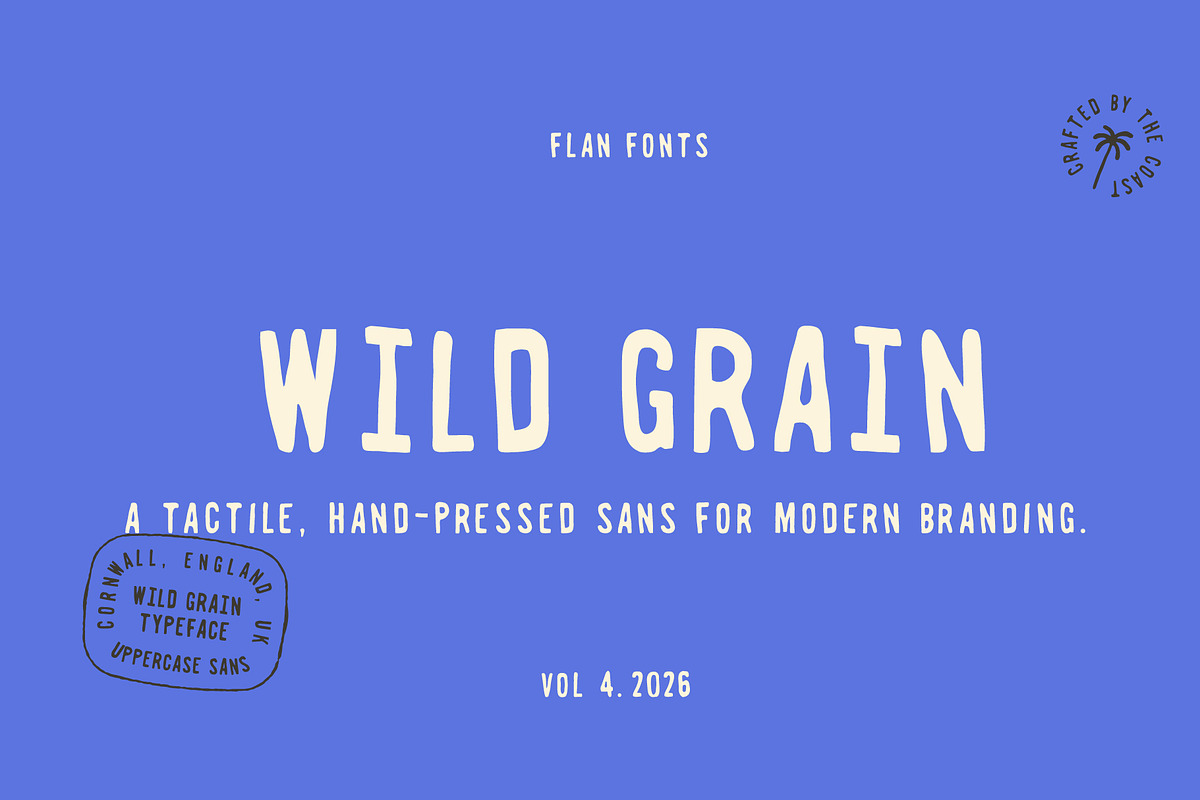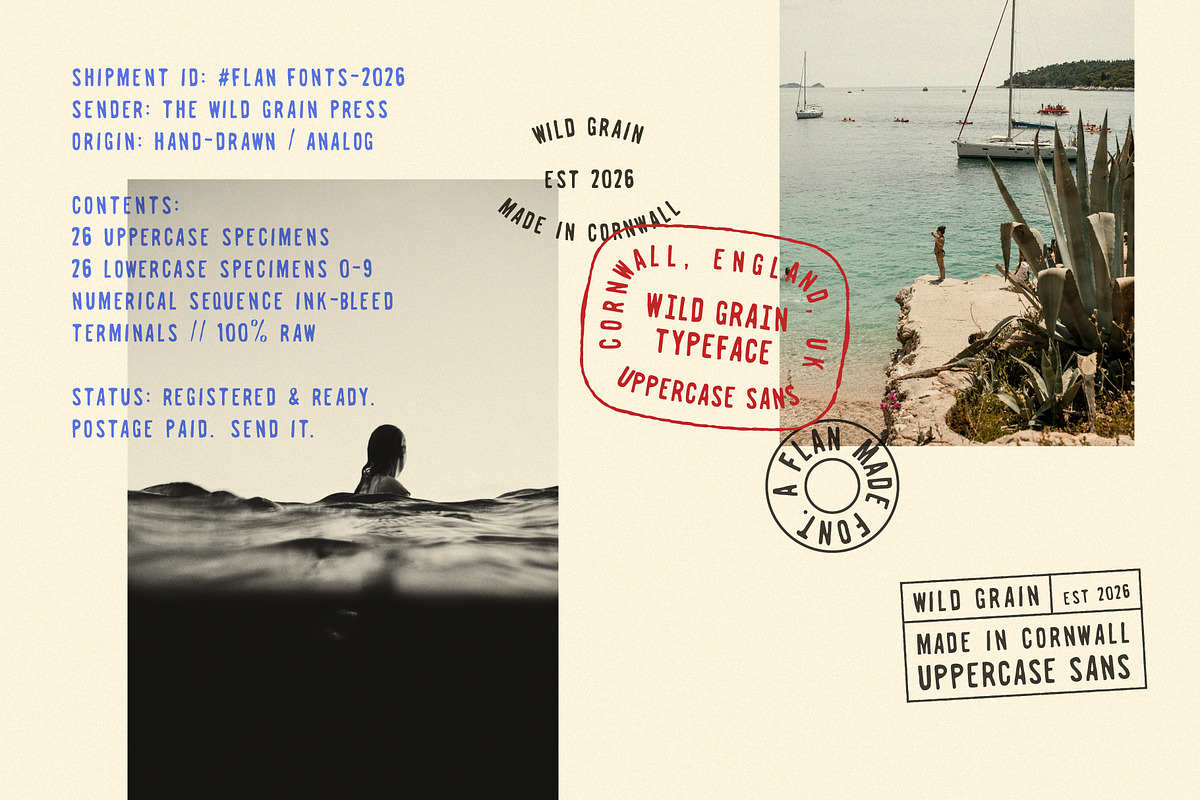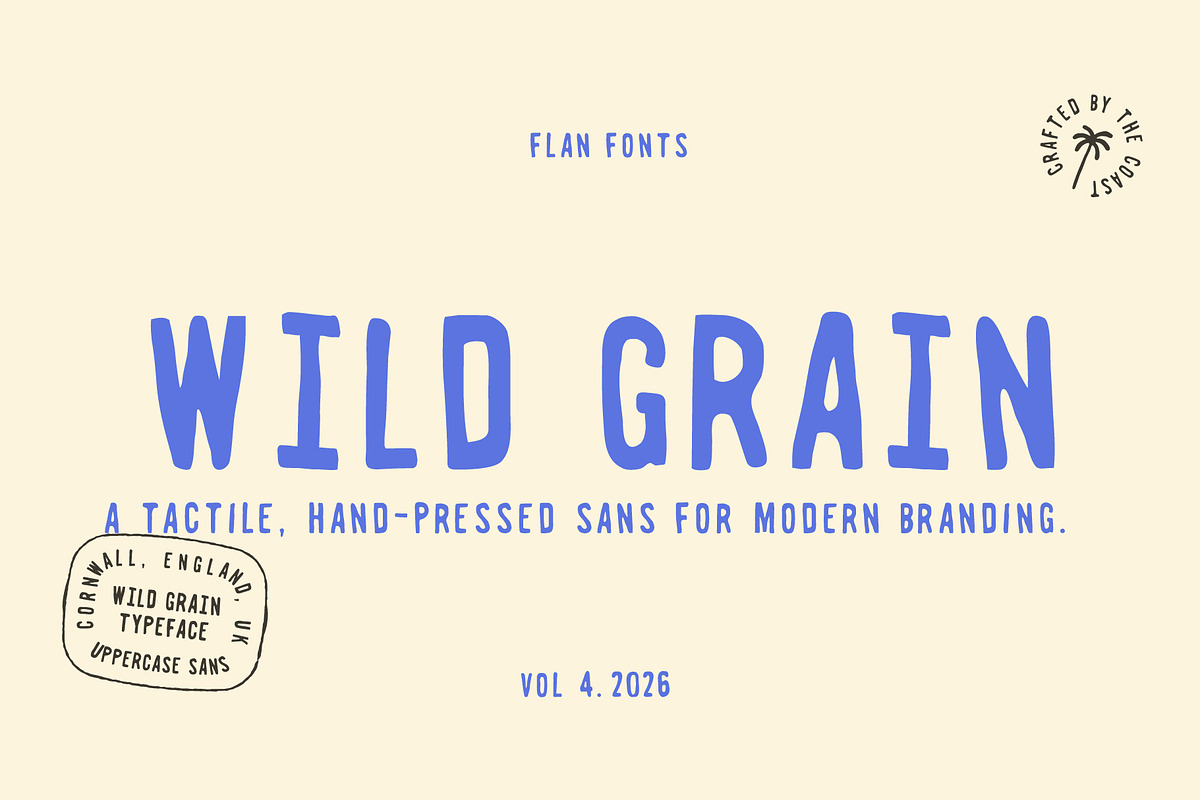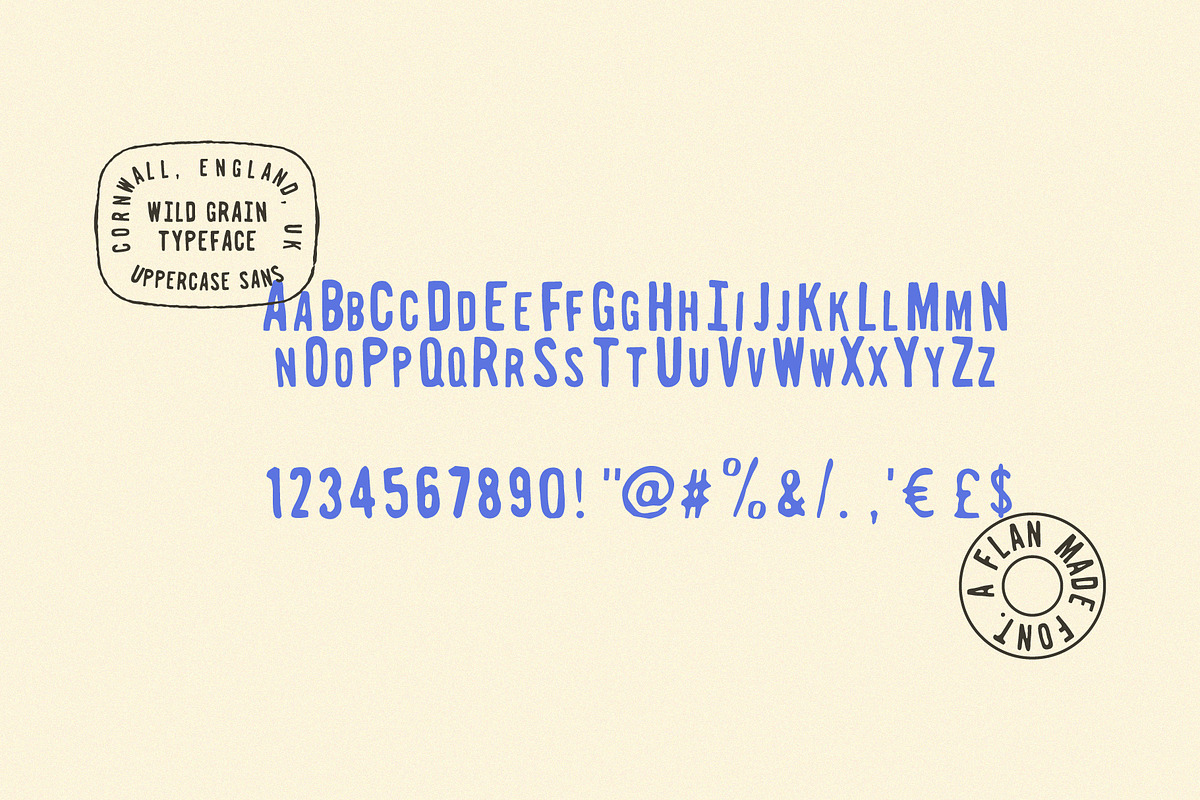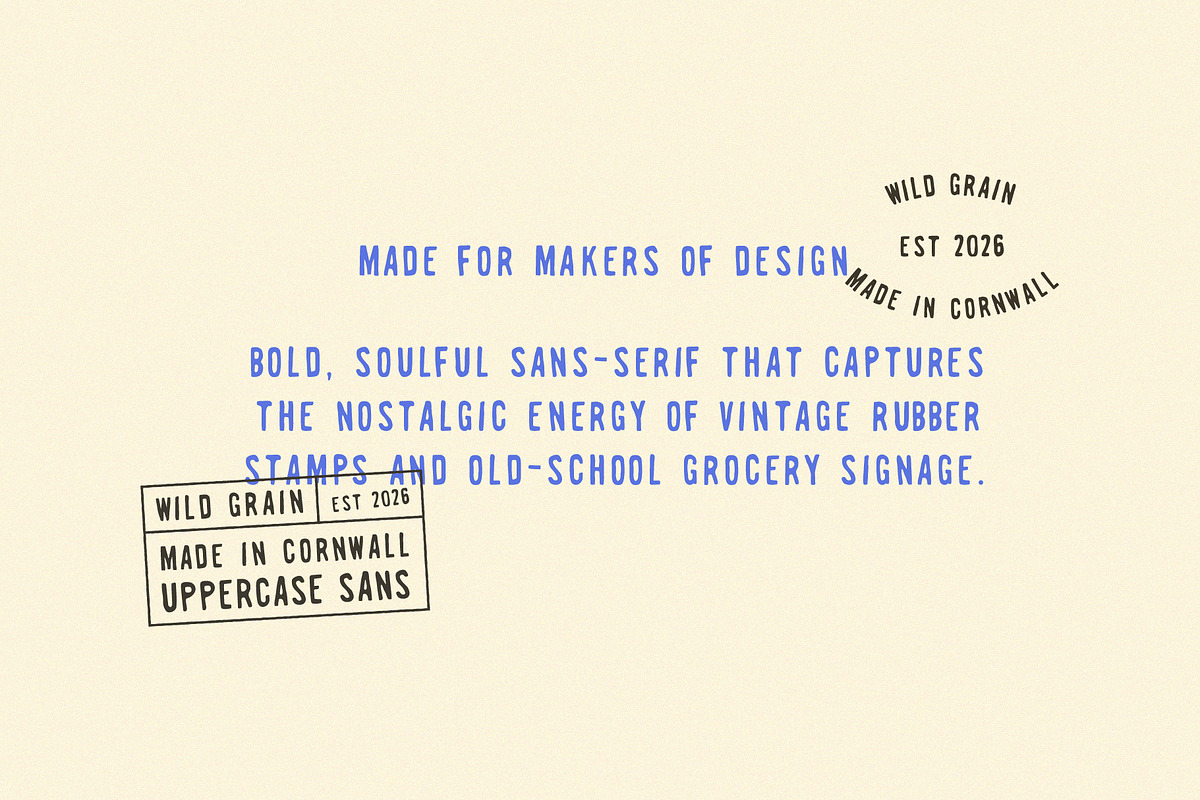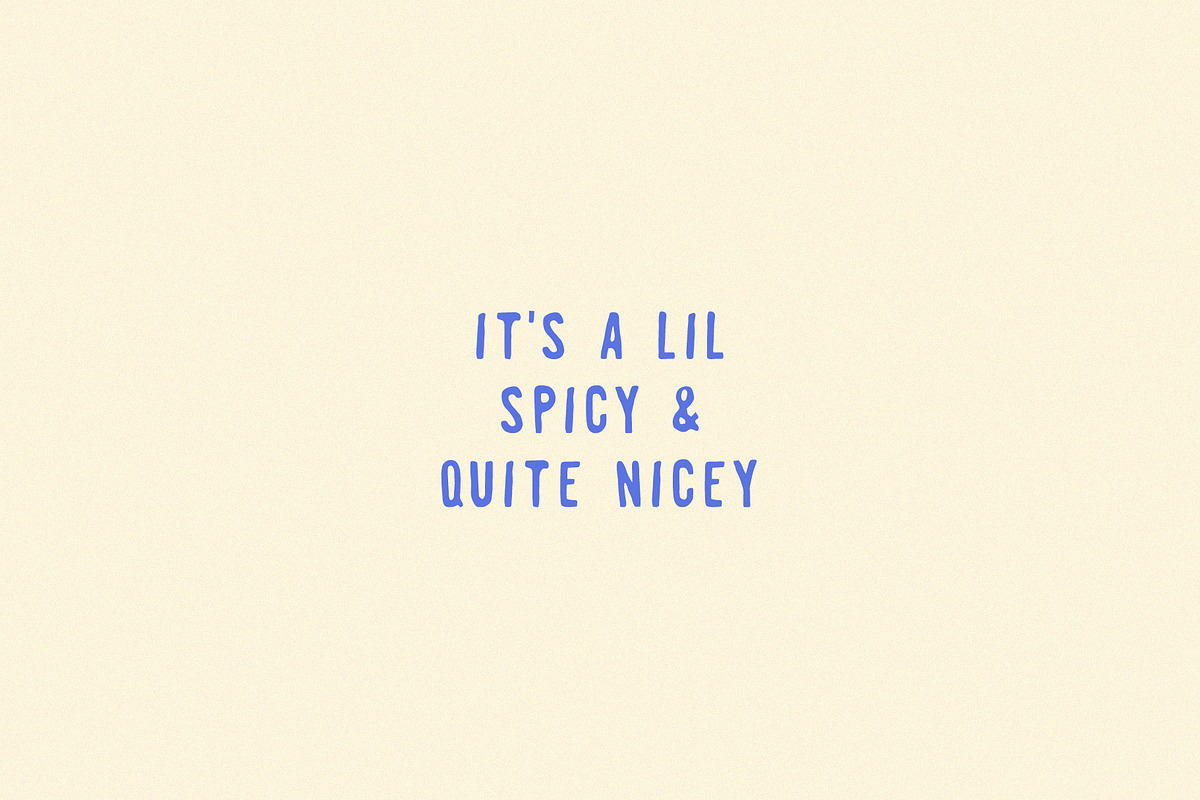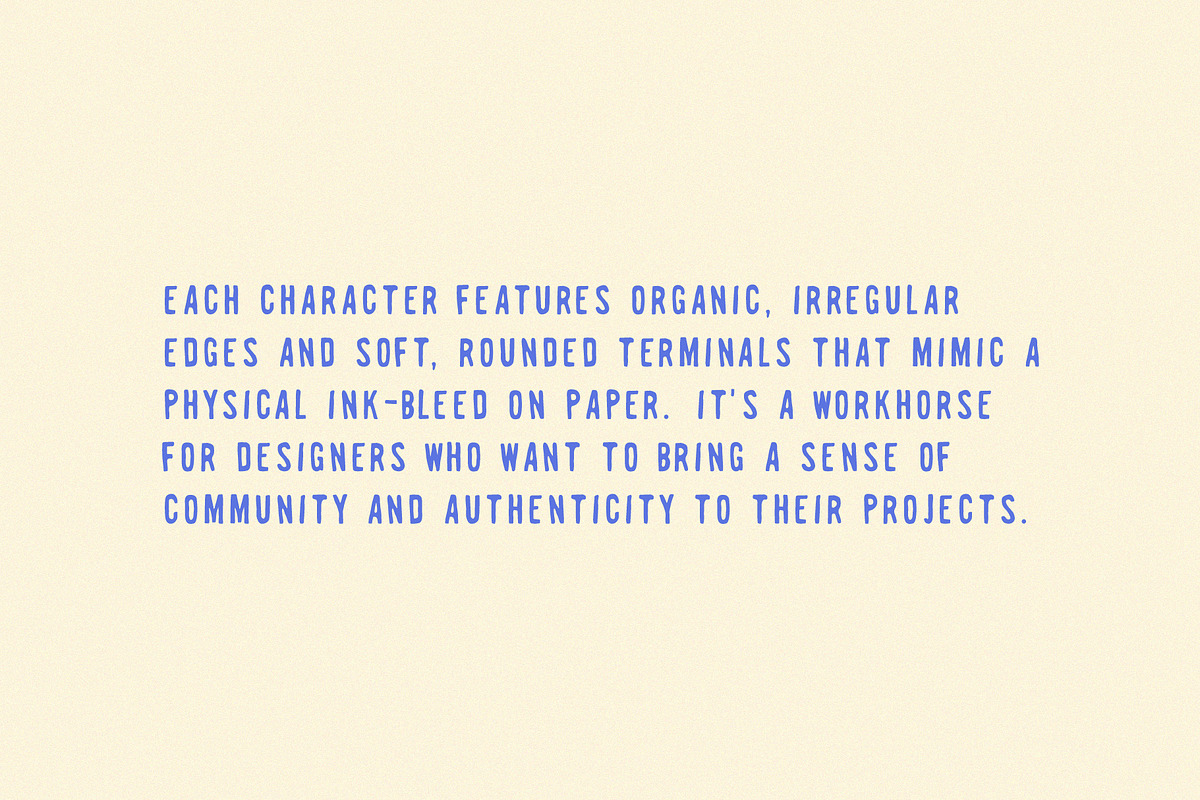
Wild Grain | A Bold Retro Stamp Sans
Stop using clean fonts for dirty designs. Wild Grain is a rugged, hand-pressed sans-serif that feels like it was pulled straight from a 1970s shipping manifest. It’s gritty, it’s heavy, and it’s 100% analog.
Why you need it: In a world of AI-generated perfection, Wild Grain stands out by being perfectly imperfect. Whether you’re designing a micro-brewery identity, a sourdough bakery logo, or a Y2K-style streetwear drop, this font provides an instant "made by hand" credibility.
Perfect for: -Postal & Mail Aesthetics: Pair it with textures of manila envelopes and red ink. -Artisan Food & Drink: Coffee roasters, farmers' markets, and craft beer labels. -Lifestyle Editorial: Bold headlines for magazines that value soul over symmetry.